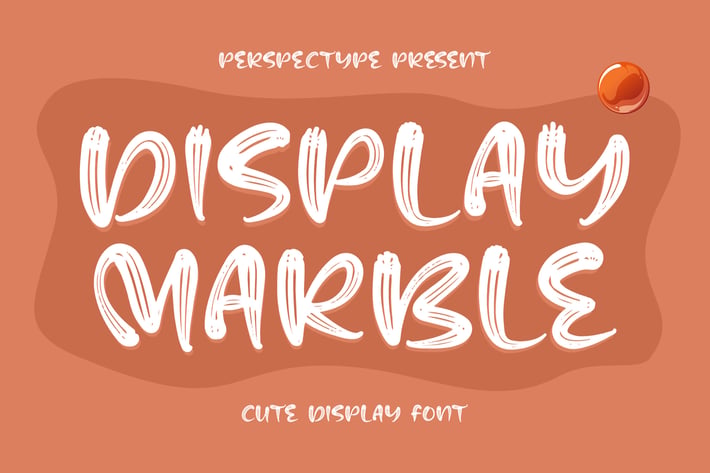
Display Marble Cute Display Font
Display Marible is a playful and charming display font designed with a bold, yet fun aesthetic. With its rounded edges and bubbly character, it brings a youthful and creative vibe to any project. Perfect for designs that aim to catch attention while maintaining a lighthearted, cute look, this font is ideal for posters, children’s branding, and social media content.
Playful and cute display font with rounded edges
Bold and eye-catching for high-visibility design
Perfect for whimsical and fun branding
Children’s books and educational content
Playful branding and logos
Fun marketing campaigns
Posters and event flyers
Social media graphics and website headers
Bring some fun and creativity to your designs with Display Marible — where playful meets bold.*